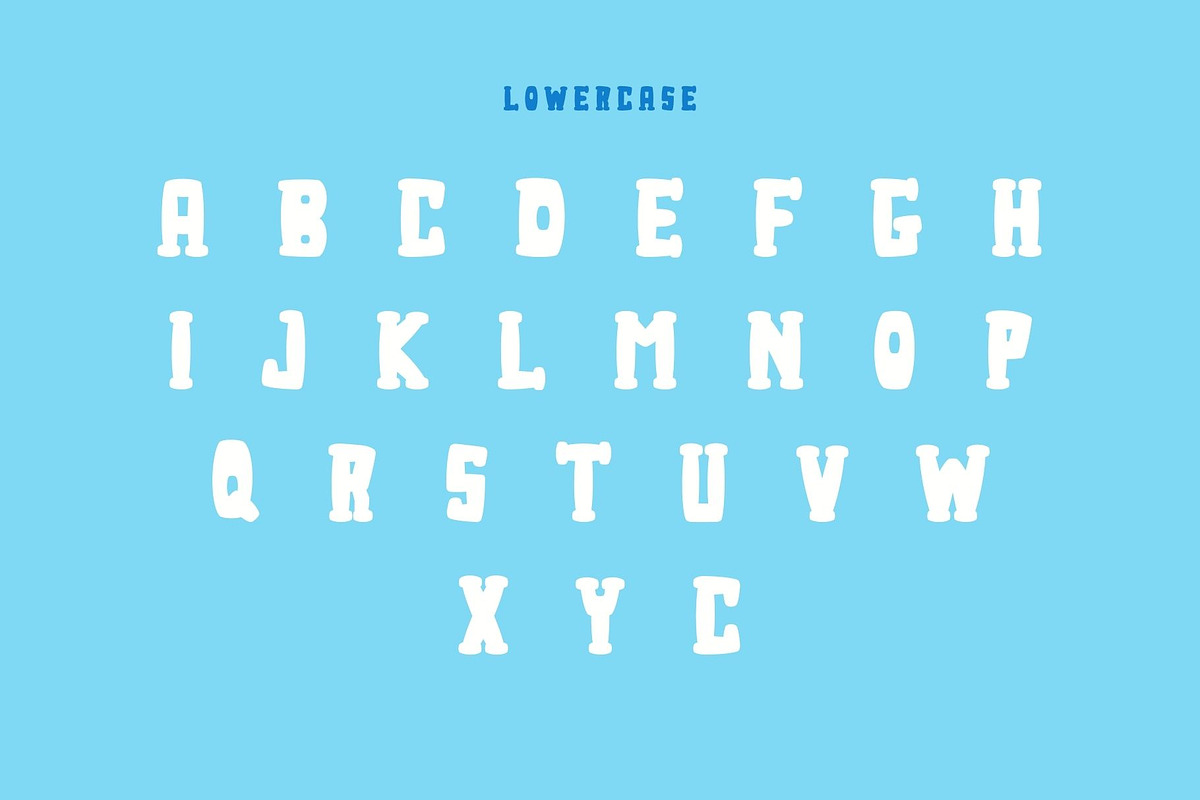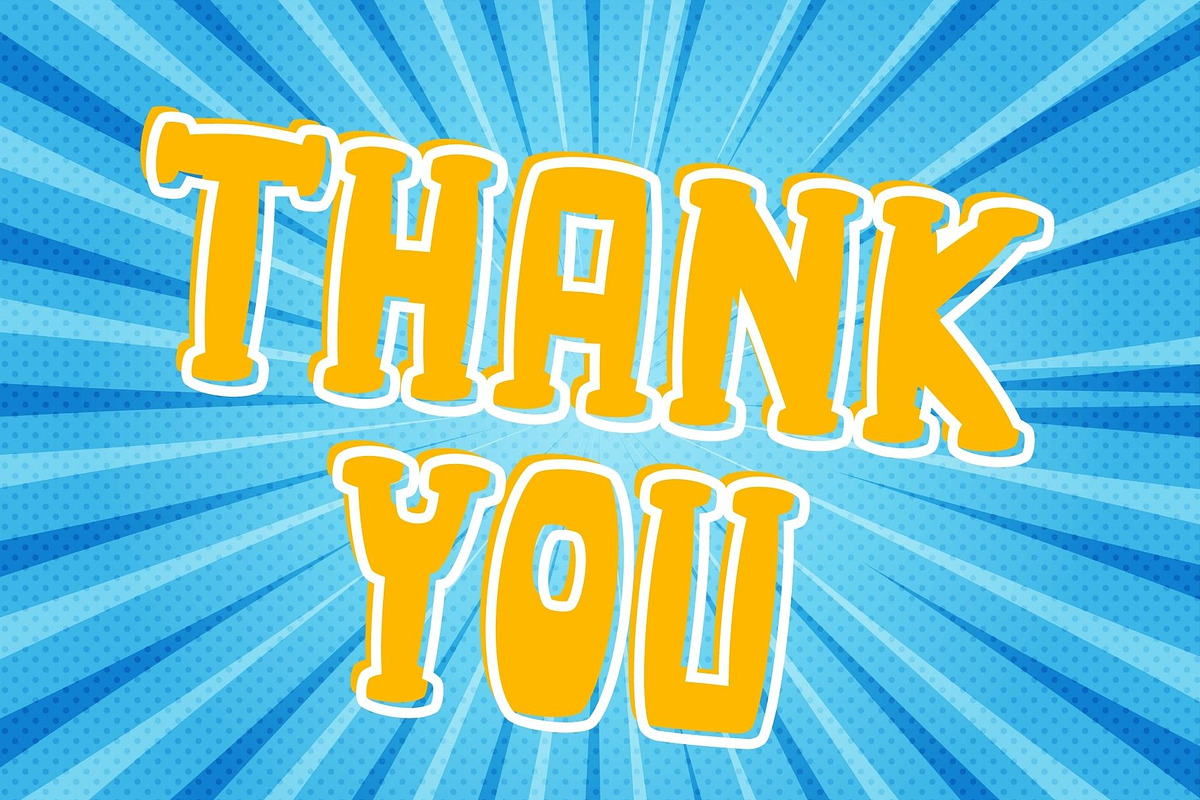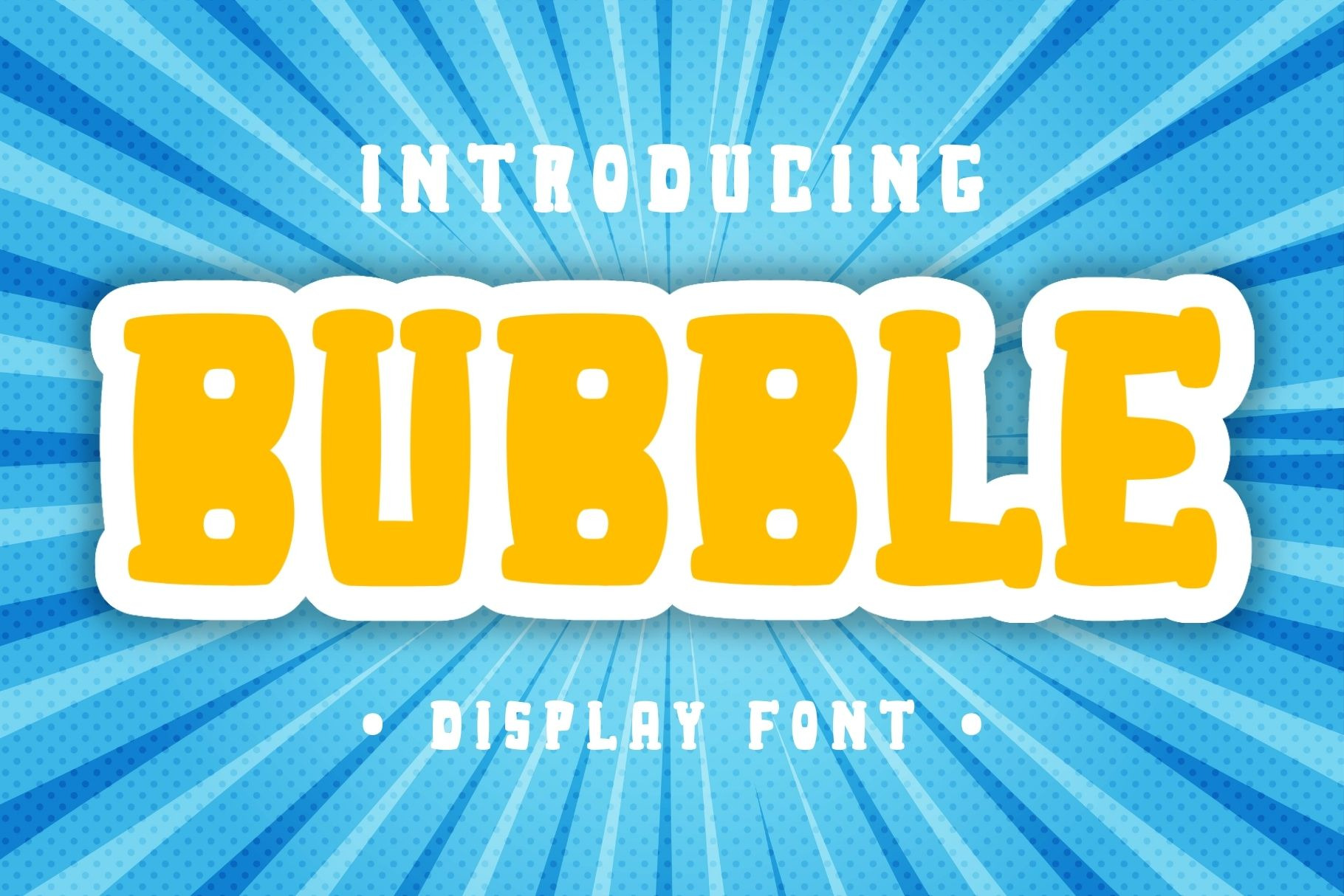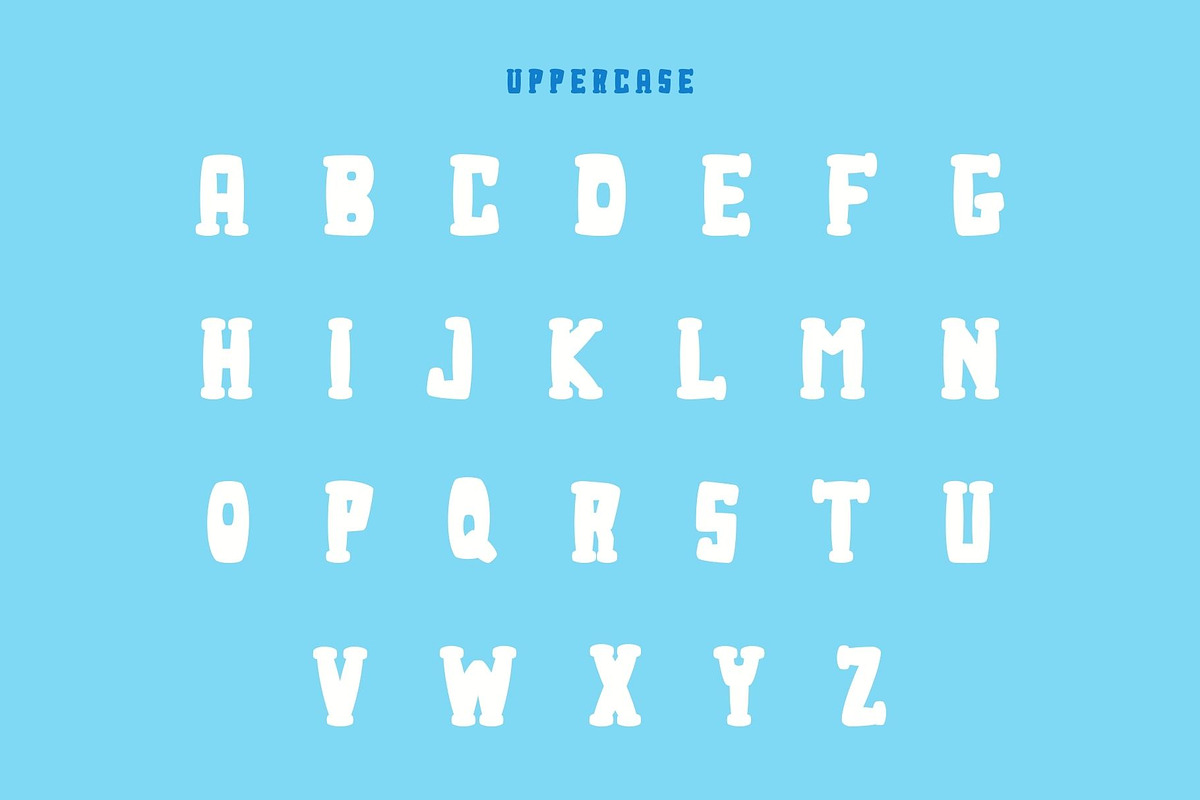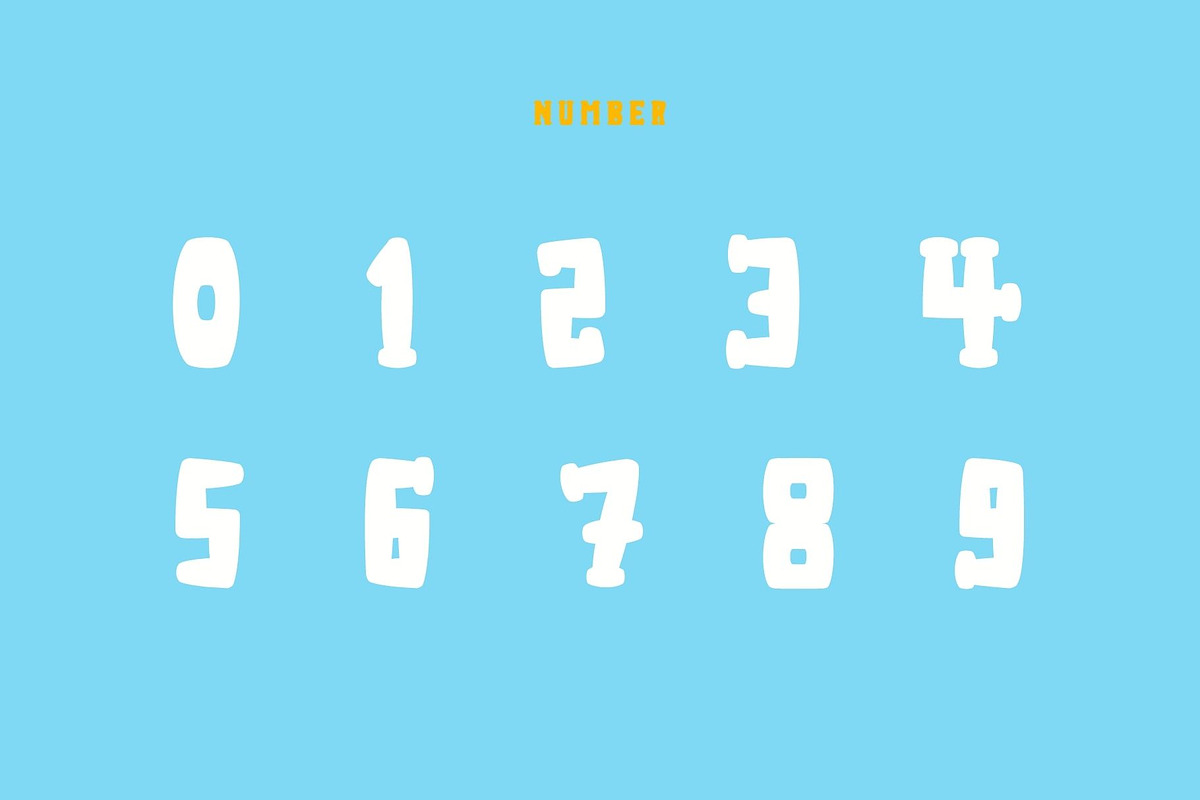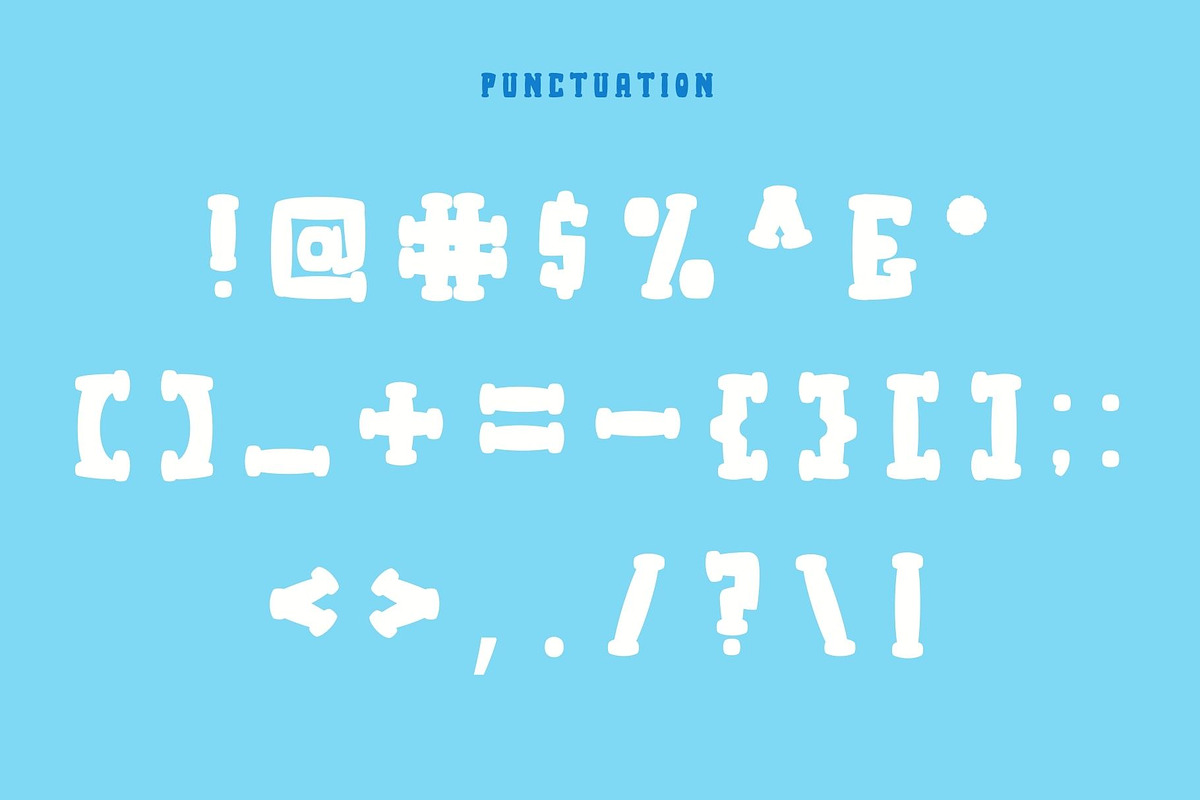
Bubble - Serif Font
Bubble is a fun serif font. It embodies playfulness and authenticity and is the perfect choice for all your favorite Halloween projects, or even for blog posts, logos, branding, ads, invitations, greeting cards, planners, photo albums, decorations, and much more. Add it to any of your designs, and enjoy the results!